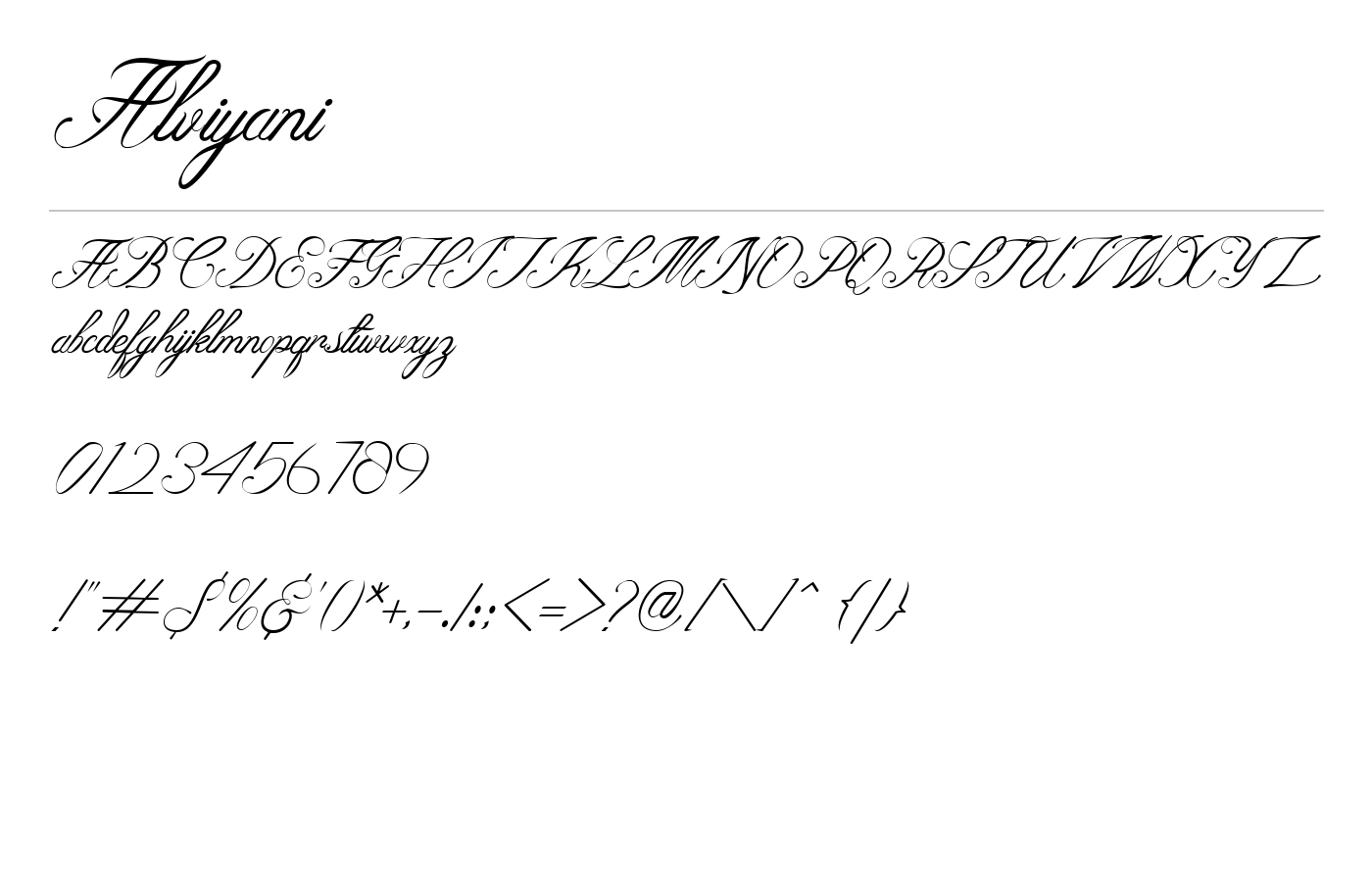
Alviyani is an elegant script font characterized by its delicate, flowing strokes and refined calligraphic style. With slender, graceful letterforms and fine contrast, it evokes a sophisticated and classic feel, making it ideal for wedding invitations, luxury branding, and formal stationery. Its airy, stylish design brings a touch of timeless charm to any project requiring a refined and artistic touch.
Alviyani Font
About Alviyani Font
| Font family | Alviyani Font |
| Designer | Irfan Hidayat |